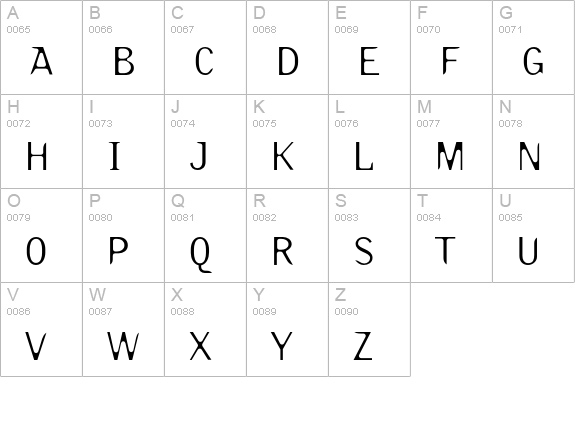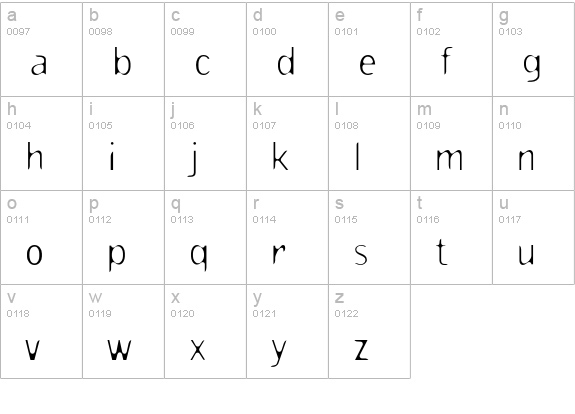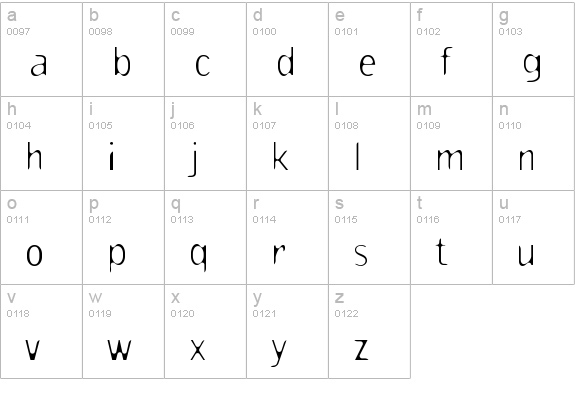
Introducing Truth-Lite font, a stunning and versatile typeface that effortlessly combines elegance with modernity. This font is the epitome of sophistication, perfect for any design project that requires a touch of class. With its clean lines and balanced proportions, Truth-Lite font exudes a sense of harmony and professionalism. Its graceful curves and precise letterforms make it easy to read at any size, ensuring that your message is conveyed with clarity and impact. But what truly sets Truth-Lite font apart is its accessibility. We believe that great design should be available to everyone, which is why we are thrilled to offer this font for free. Yes, you read that right - completely free! You can download Truth-Lite font at FontsMarket.com, where it is readily available for you to enhance your creative endeavors. Whether you're a professional graphic designer, an aspiring artist, or simply someone looking to add a touch of elegance to their personal projects, Truth-Lite font is the perfect choice. Its versatility allows it to shine in a wide range of applications, from logos and branding to invitations and book covers. So why wait? Elevate your designs with the timeless beauty of Truth-Lite font. Download it now at FontsMarket.com and unlock the boundless creative possibilities that this exceptional typeface has to offer. Experience the freedom of expressing your ideas with a font that is not only visually captivating but also freely accessible to all.